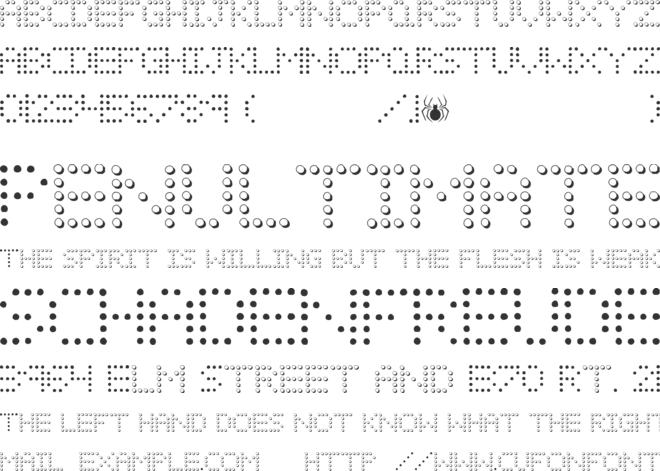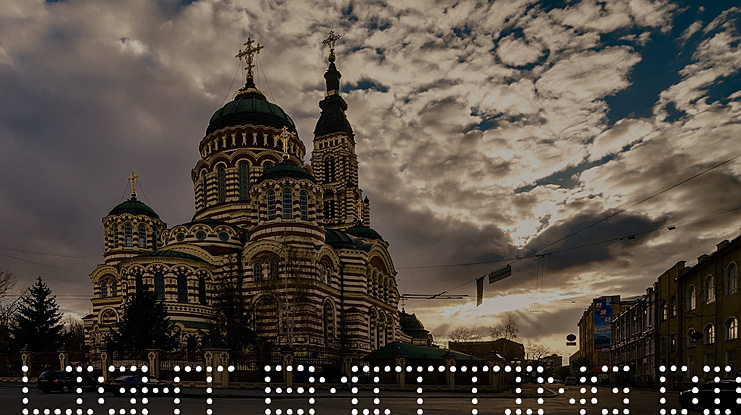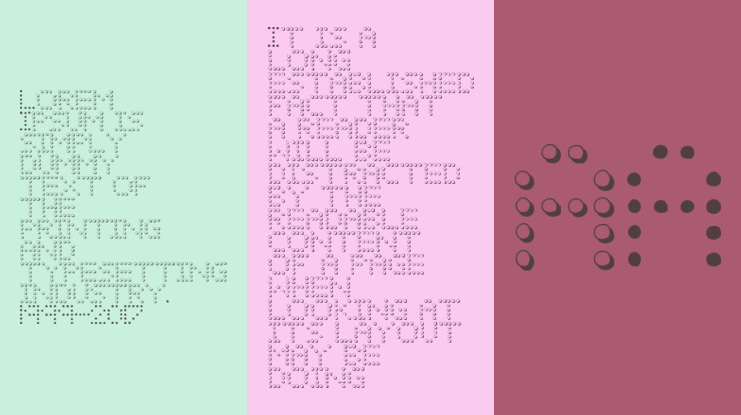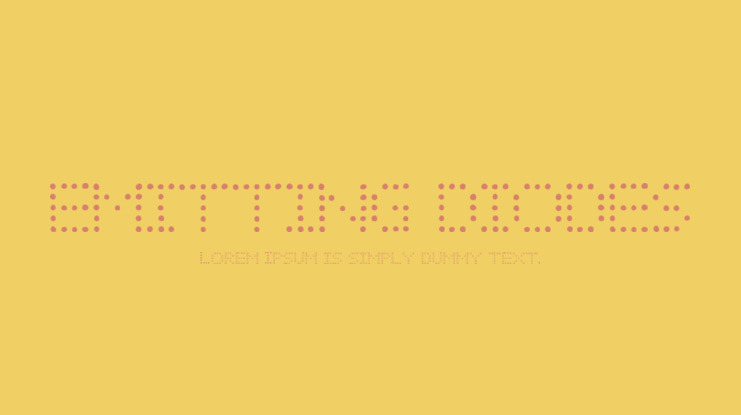
SpideRaY
One of my first typefaces from 2011 where I started to use a grid sections of similar shaped images for the design process by turning off or on locations for the stems and crossbars I guess this was the precursor for my LEGOBRIX typeface this time brix instead of LEDS were used to the same effect.